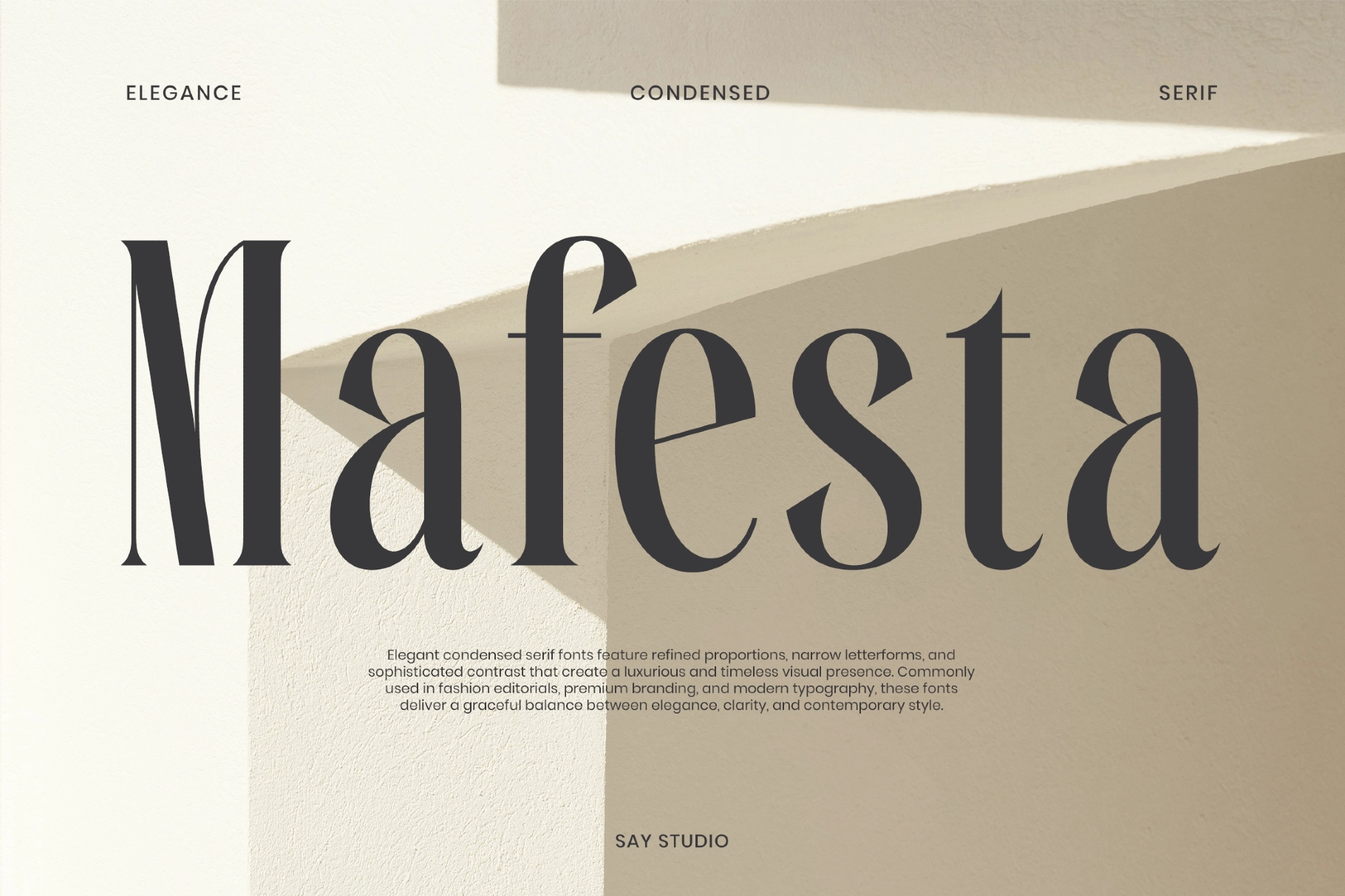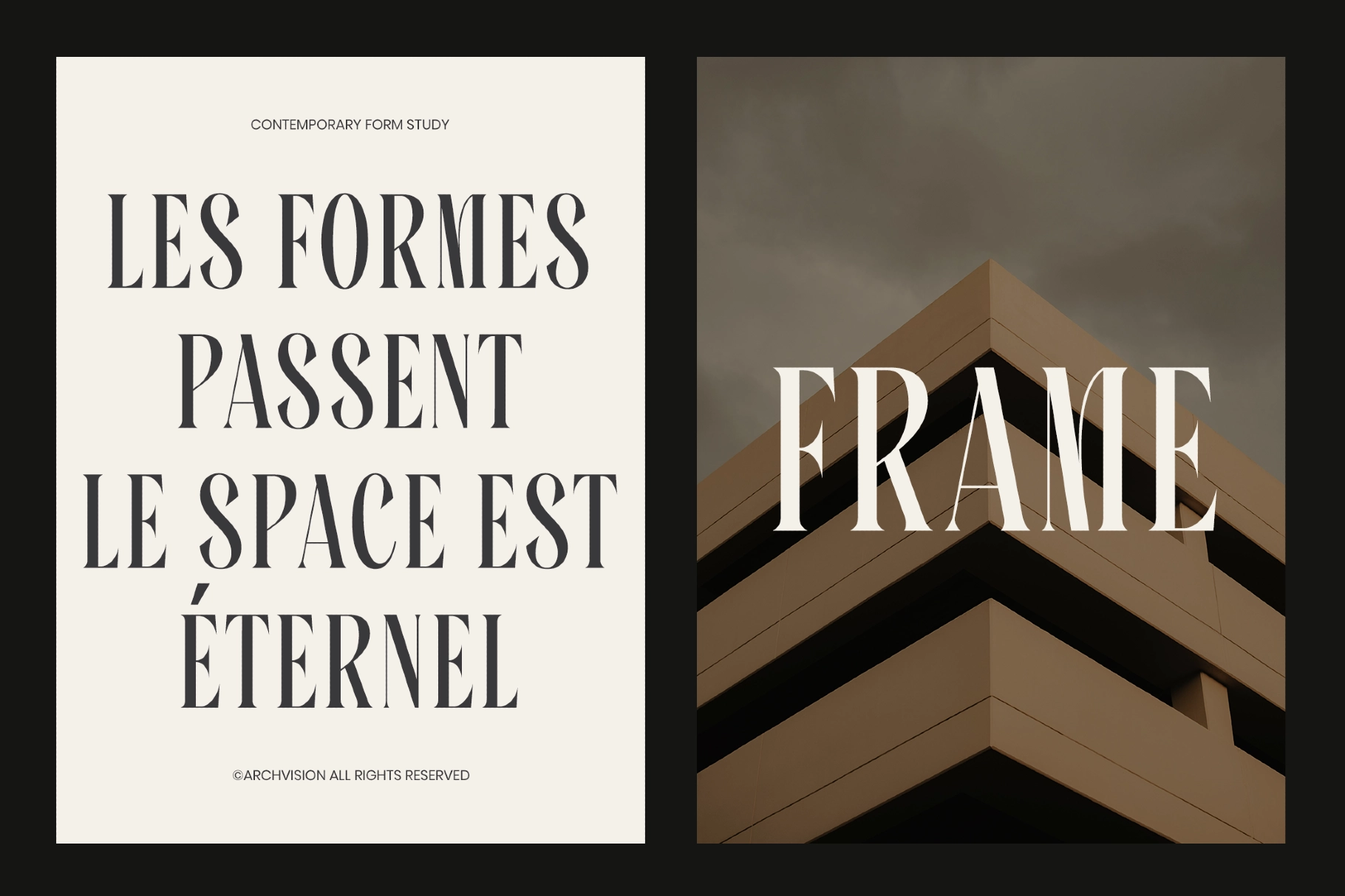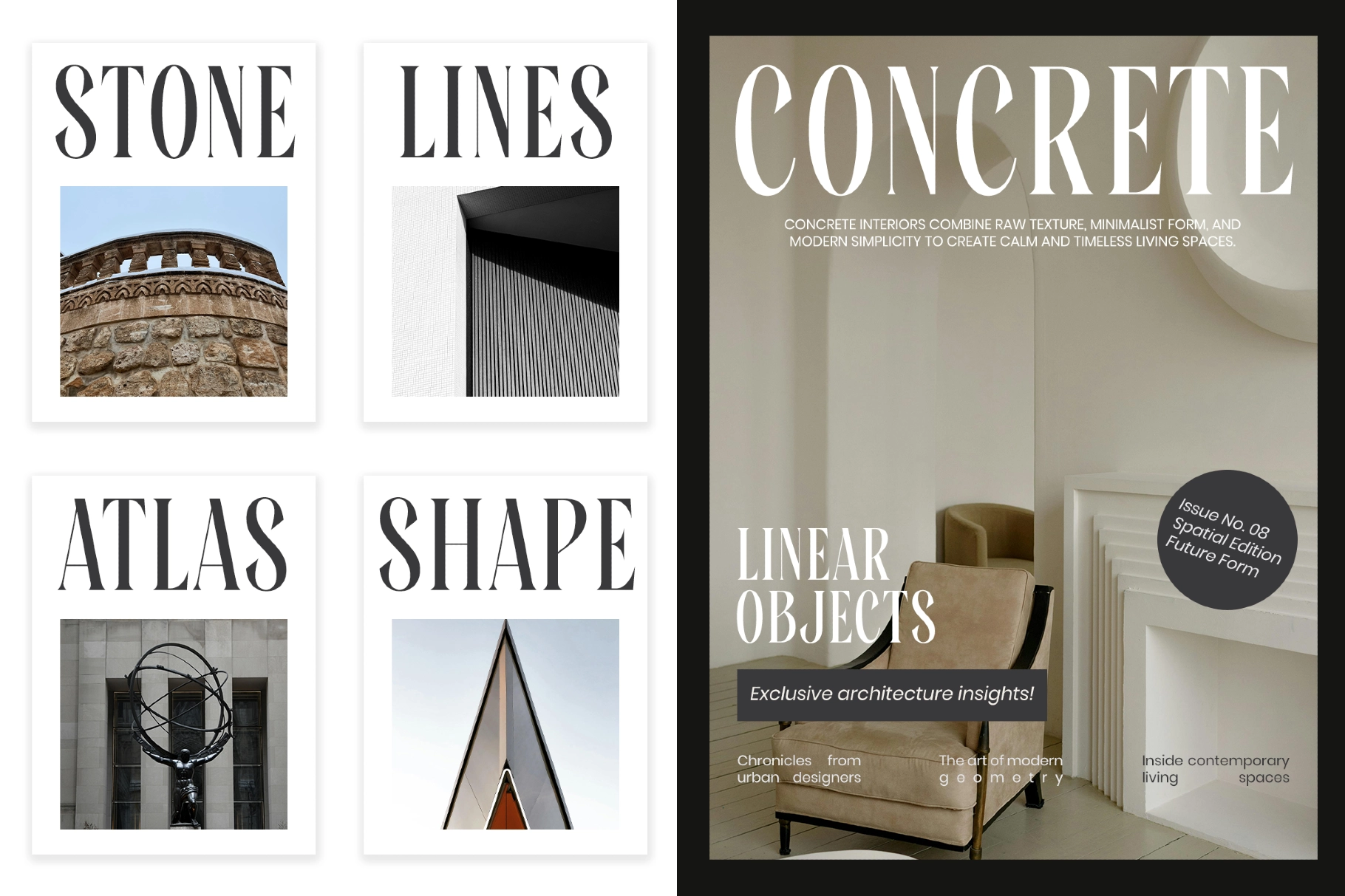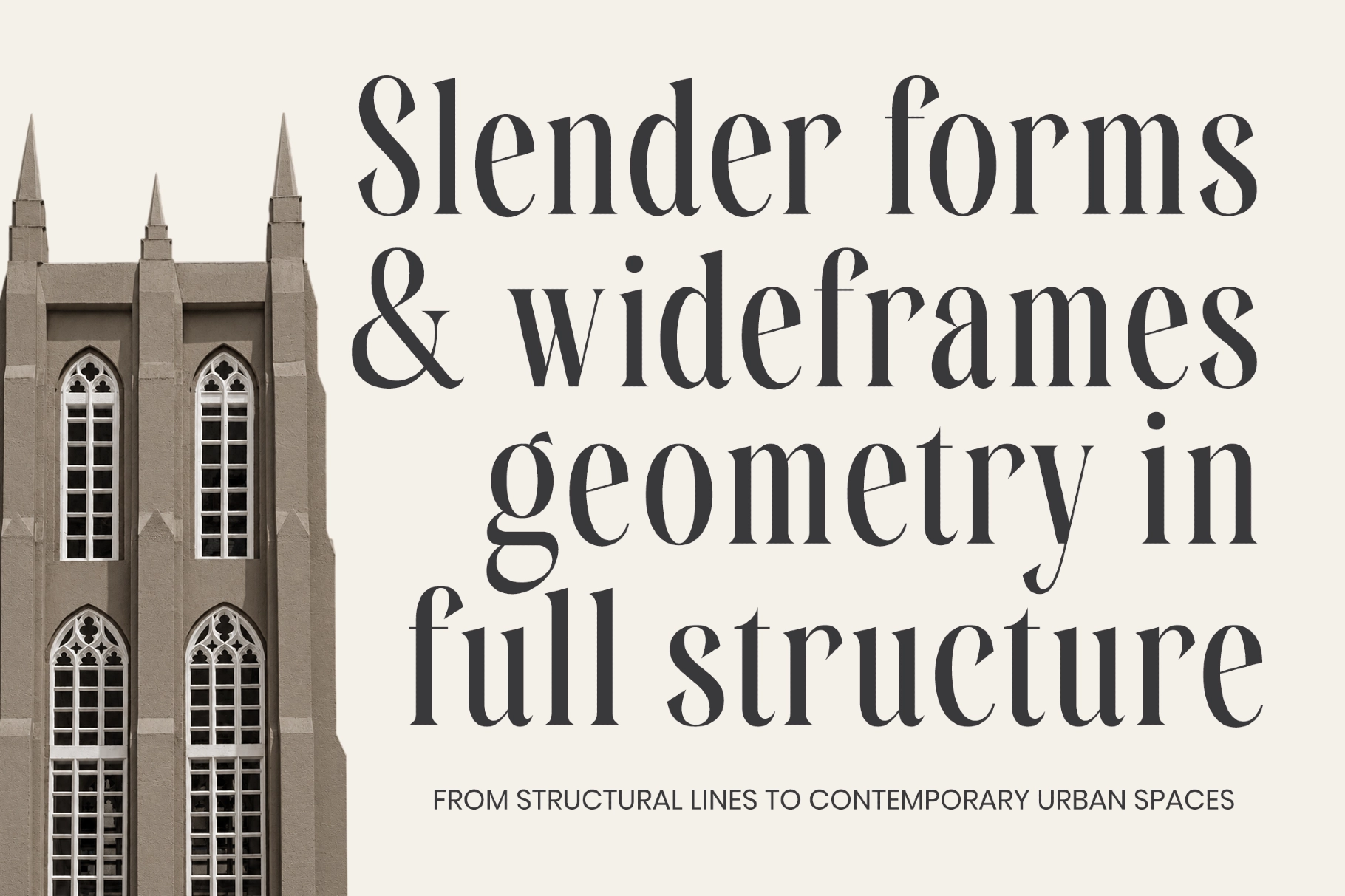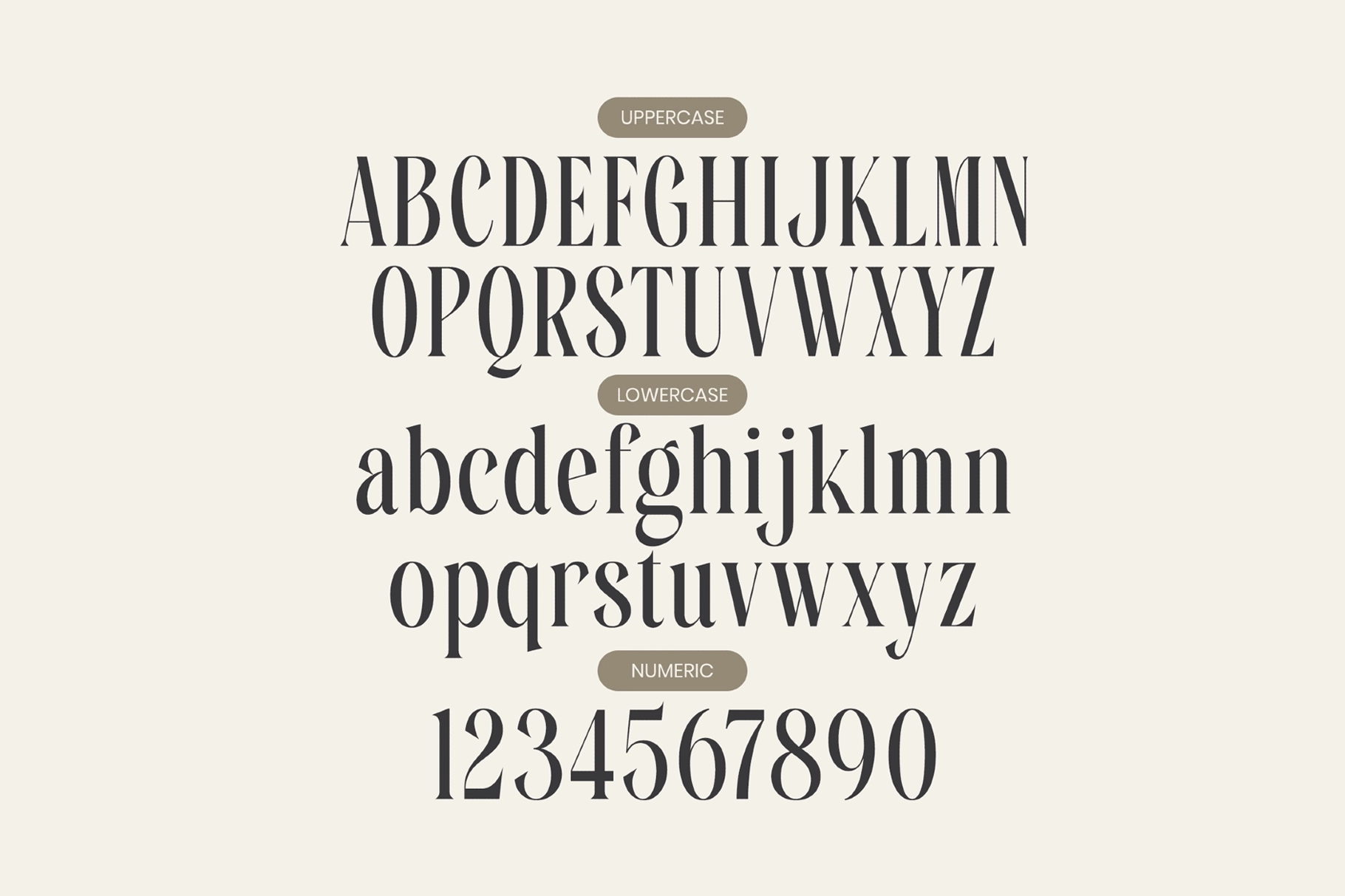
Mafesta - Luxury Condensed Serif Font
This elegant condensed serif typeface has slender proportions, high-contrast strokes, and graceful curves made for premium visual systems. Its narrow structure gives headlines a tall architectural presence, while the refined serif details keep logos, campaigns, and packaging composed.
Mafesta works beautifully for luxury branding, fashion editorials, boutique logos, architecture publications, interior design layouts, magazine headlines, fragrance packaging, monograms, beauty campaigns, hotel identities, premium labels, social media titles, and more. The Regular and Italic styles give designers a polished pair for hierarchy, accent text, and dramatic display typography.
- 2 styles: Regular, Italic
- Numbers, symbols & punctuation